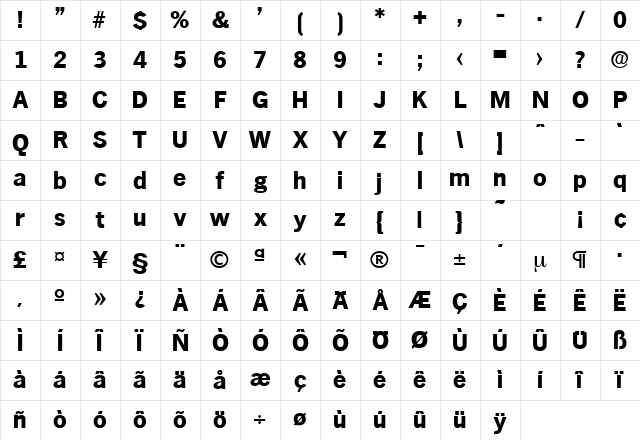
Complete Hamburg-Serial-ExtraBold Regular glyph index. Displaying only characters natively supported by Hamburg-Serial-ExtraBold Regular font.
Hamburg-Serial-ExtraBold is a composed and adaptable typeface that performs quietly and consistently across a wide range of design contexts. Its bold stroke weight gives it real presence on the page.